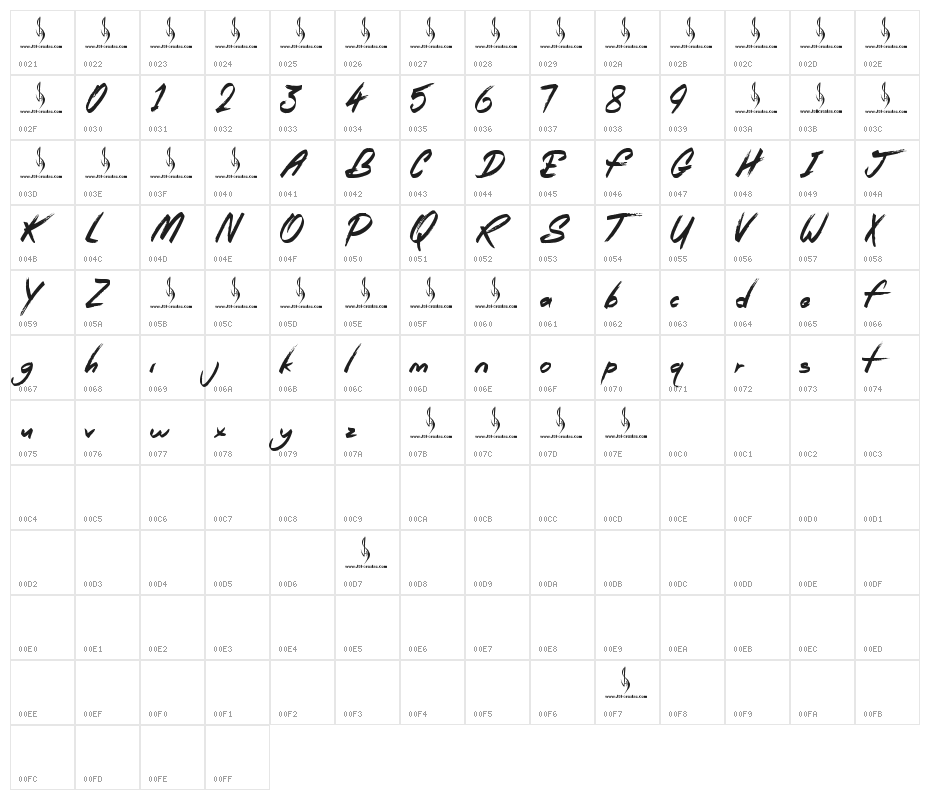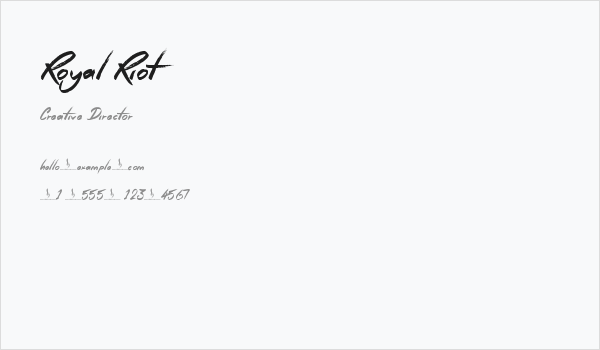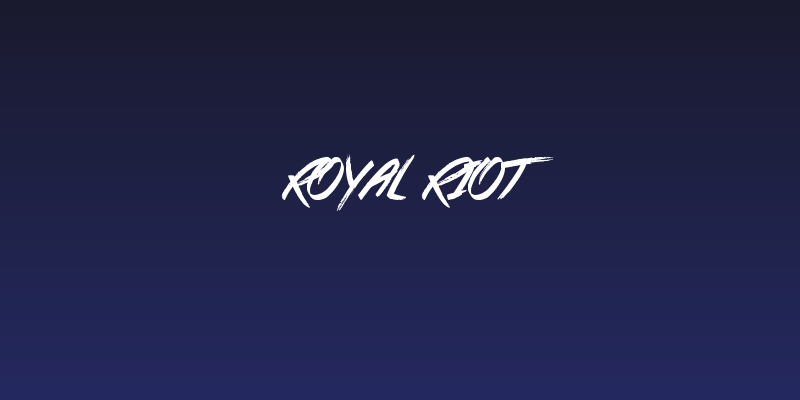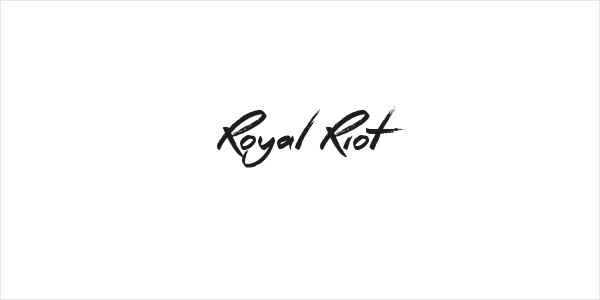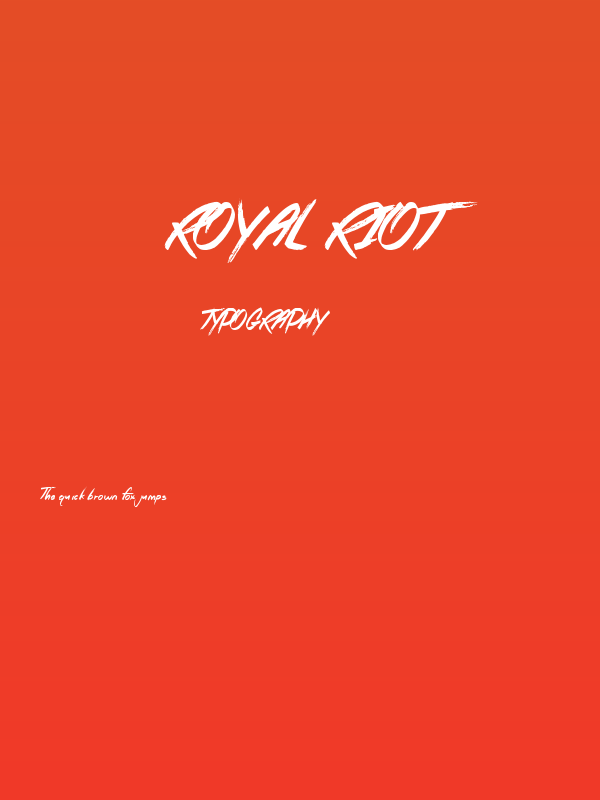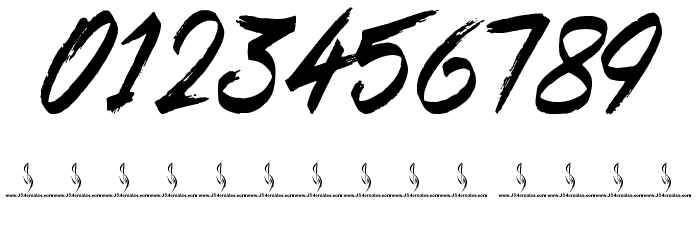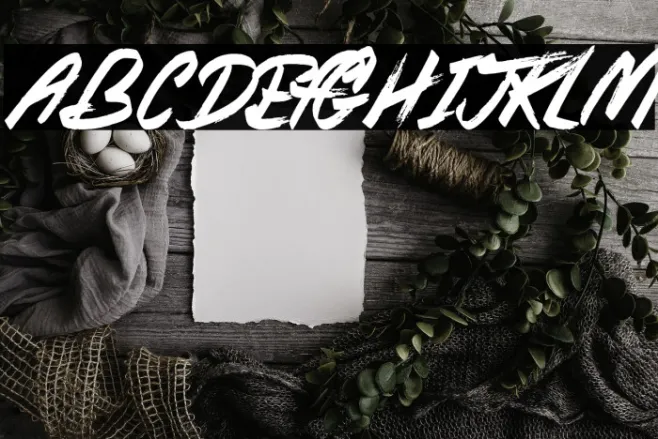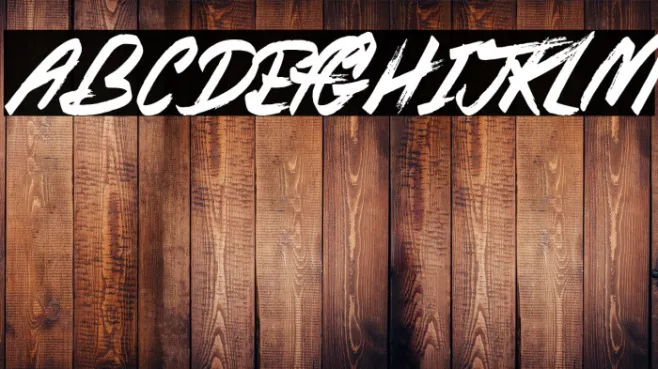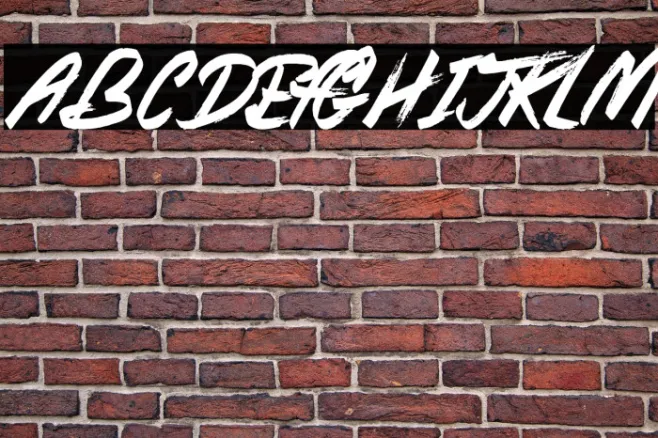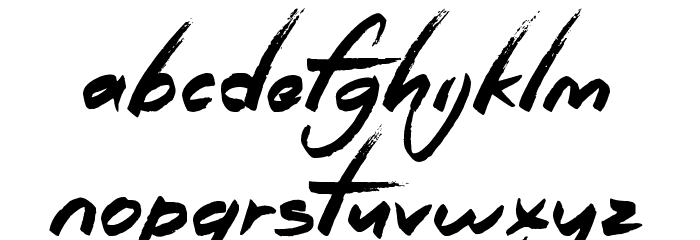
Royal Riot Font
Royal Riot Description
This font exudes a bold and energetic style, characterized by its brush-like strokes and dynamic movement. The letters are crafted with a sense of urgency and flair, giving them a hand-painted appearance. The uppercase and lowercase letters maintain a consistent flow, while the numerals and special characters complement the overall aesthetic. The strokes vary in thickness, adding a sense of rhythm and spontaneity to the design. This font is ideal for projects that require a touch of creativity and boldness, making it suitable for artistic and expressive applications.
| Overall Style | Modern, Artistic |
| Proposed Projects | Perfect for posters, album covers, branding, and any project requiring a bold, artistic touch. |